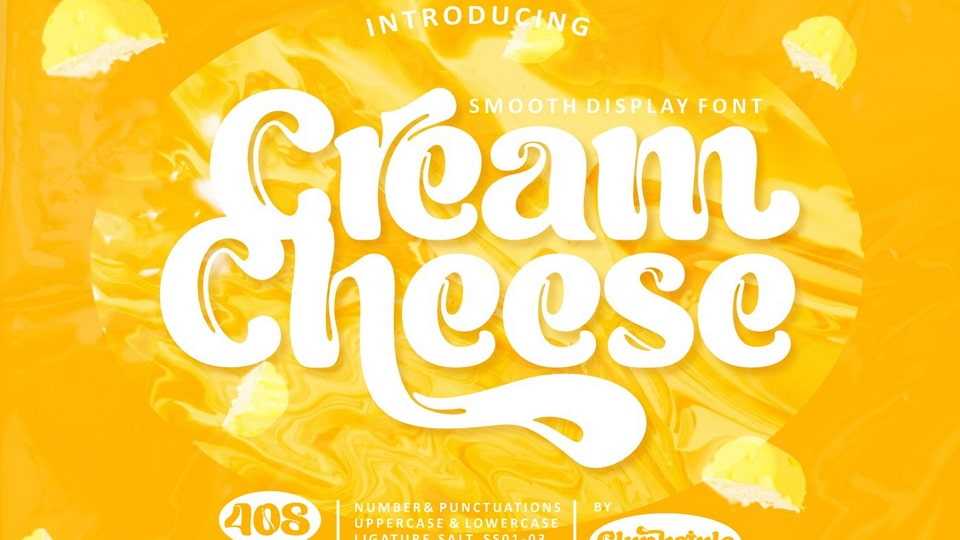
Download Cream Cheese font, a bold display typeface that has smooth curves. With the letters that look like melted cream, Cream Cheese font is perfect for branding projects, logos, social media, ads and more.